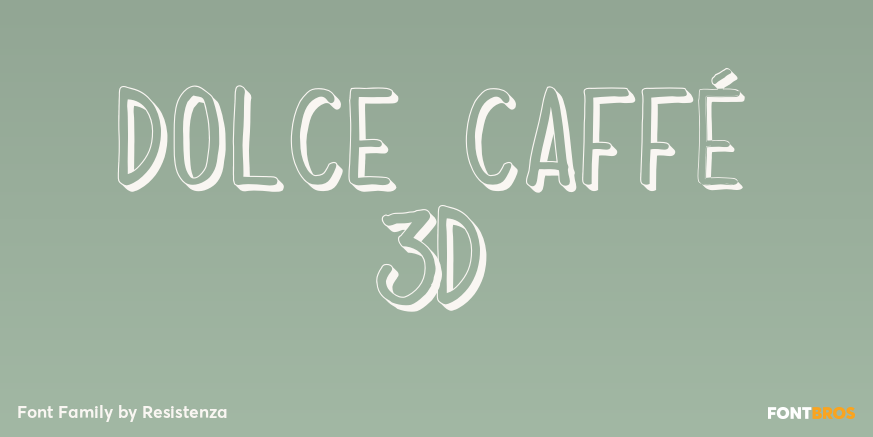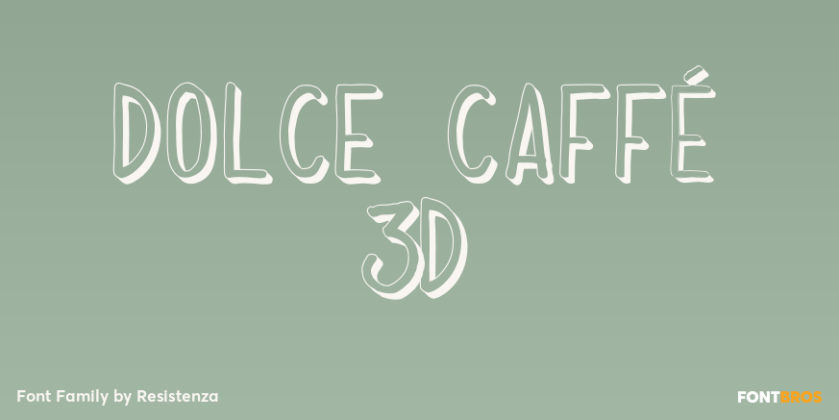
HomeFont BrosHandwrittenDolce Caffé 3d HandwrittenSpecial EffectScripts: CasualWacky Dolce Caffé 3d FacebookXPinterestWhatsApp 1 of 1 About Dolce Caffé 3d 3D, 3D Rough and Shadow versions of Dolce Caffe, a handwritten all uppercase font inspired be a Berliner menu. Very legible faces, high in style and carefully constructed all-uppercase letters.  DOWNLOAD ON FONT BROSThis font is sold and delivered by Font Bros. Font Canyon may earn a commission if you buy through this link. People also explored Hampten Font Sweet Cream Font Ashintta Font Tactico Font Cute Santa Font Caramella Font Tilang Font Leafy Font Snow Winter Font 676 0 TagsDolce Caffé 3d Font Previous articleDolce CaffèNext articleZazá LEAVE A REPLY Cancel reply Comment: Please enter your comment! Name:* Please enter your name here Email:* You have entered an incorrect email address! Please enter your email address here Website: Save my name, email, and website in this browser for the next time I comment. Personal Use Free Hunting Font Personal Use Free Read more about this font Hello Holiday Personal Use Free Read more about this font Mail Ray Stuff Personal Use Free Read more about this font Millea Personal Use Free Read more about this font BLOG Using Fonts in Digital Marketing: Tips to Strengthen Your Brand Identity In the realm of digital marketing, every visual element plays a crucial role in shaping a brand's identity, and fonts are no exception. The... To increase your work productivity, choose the most readable fonts. 5 Fonts That Will Dominate Design Trends in 2026 The 10 Best Handwriting Fonts to Add Personality to Your Designs